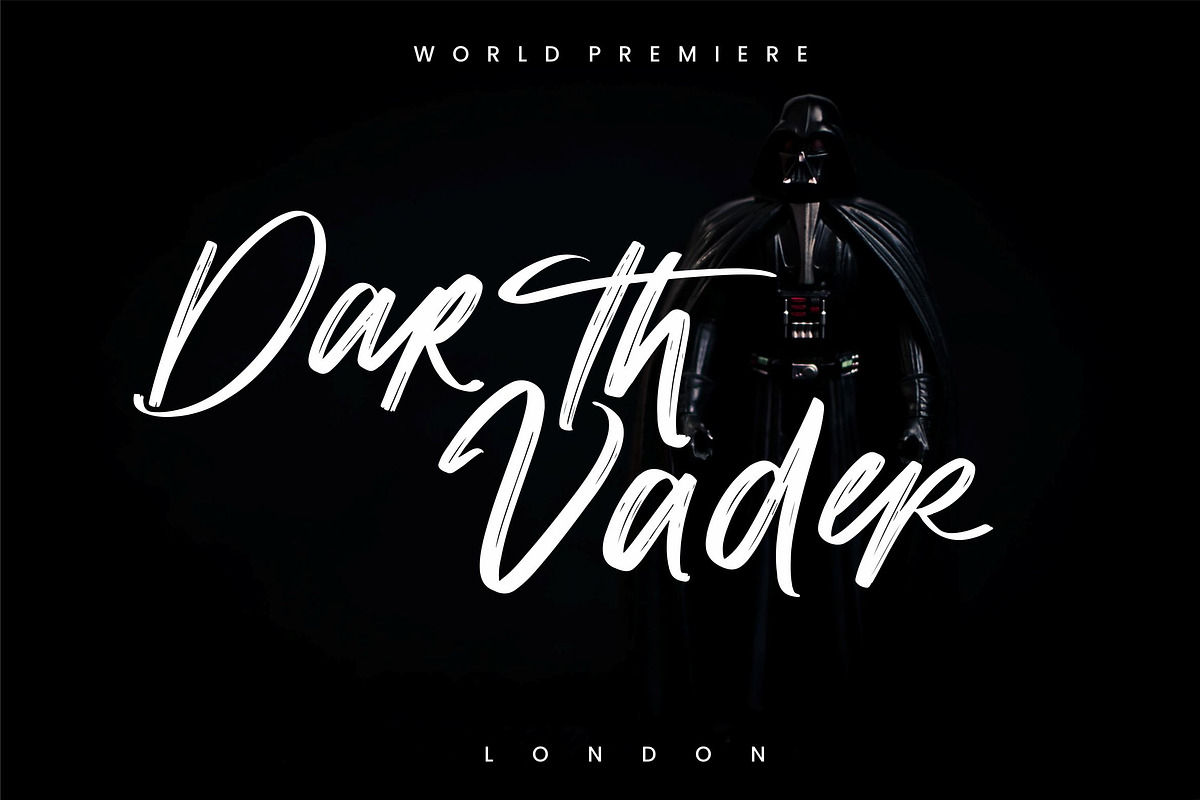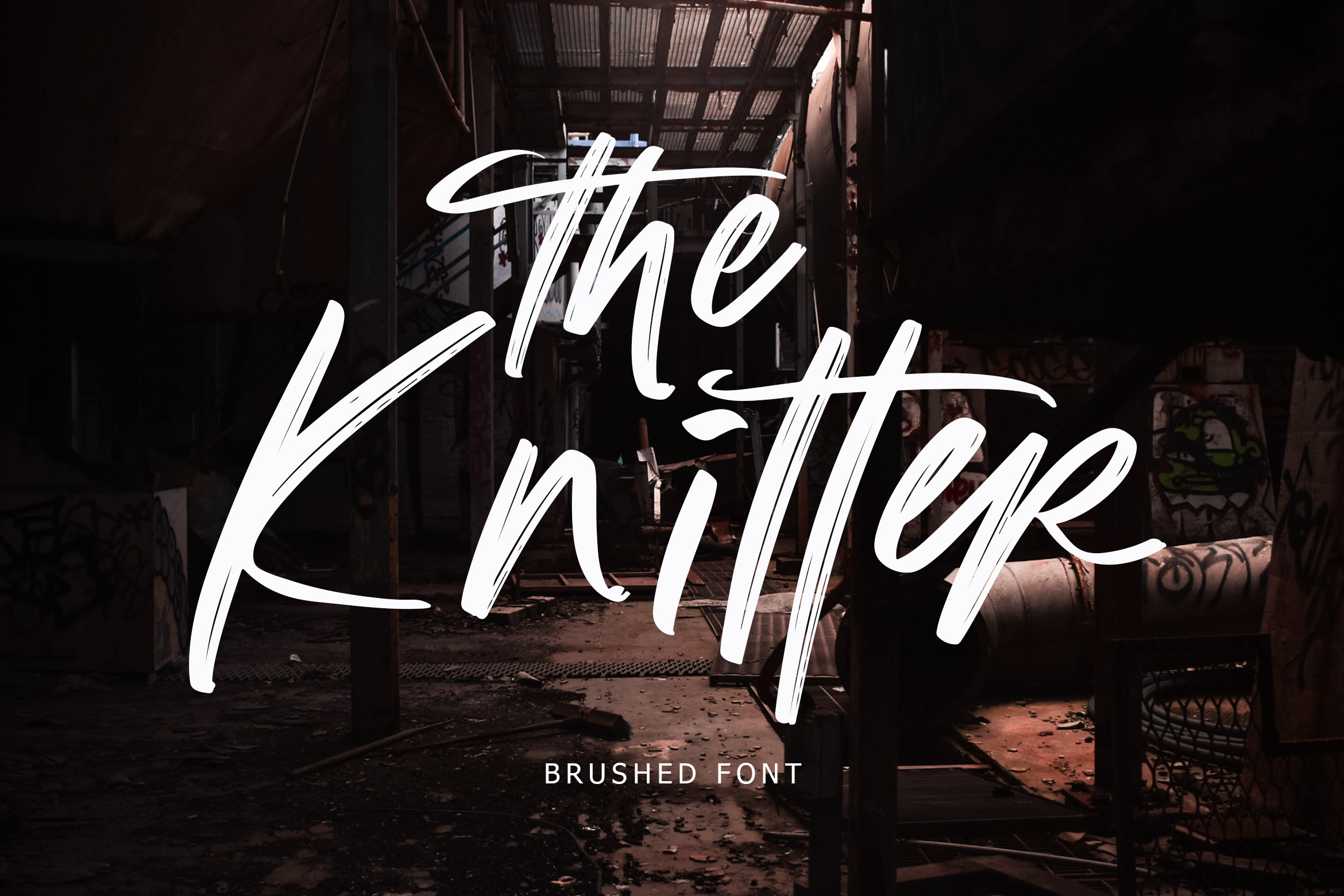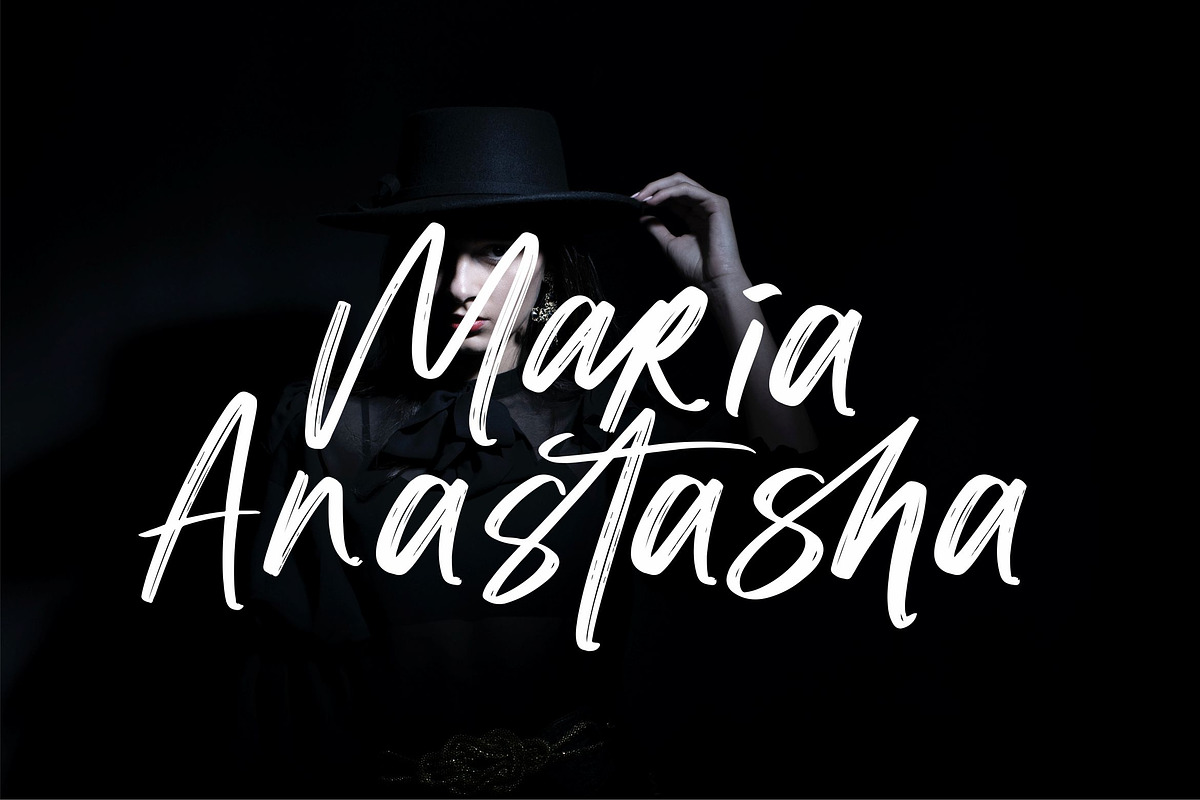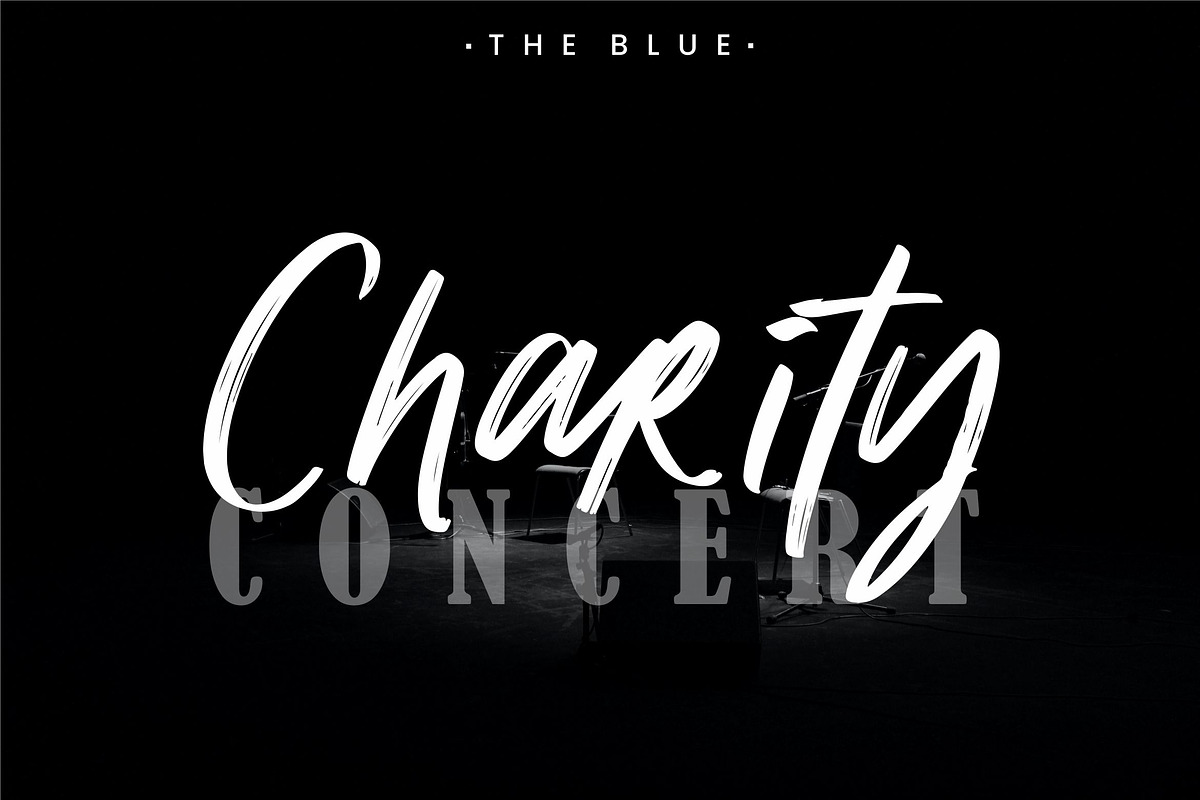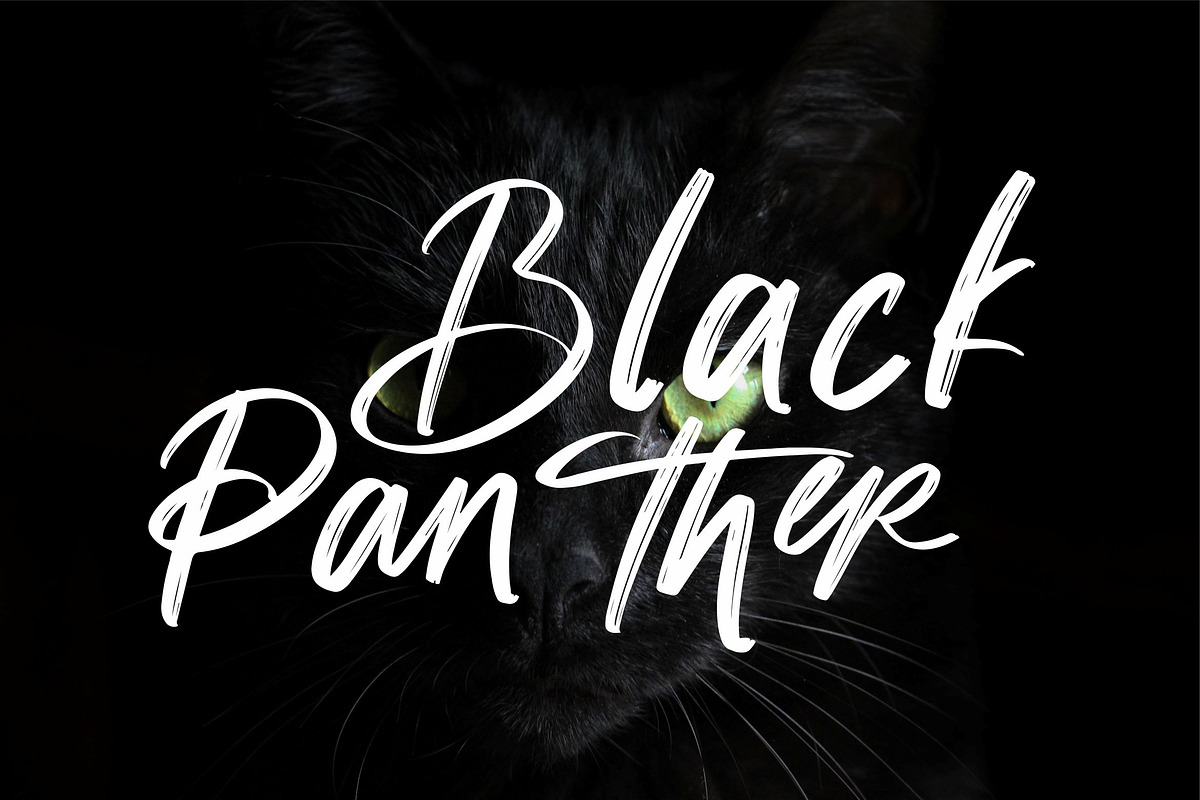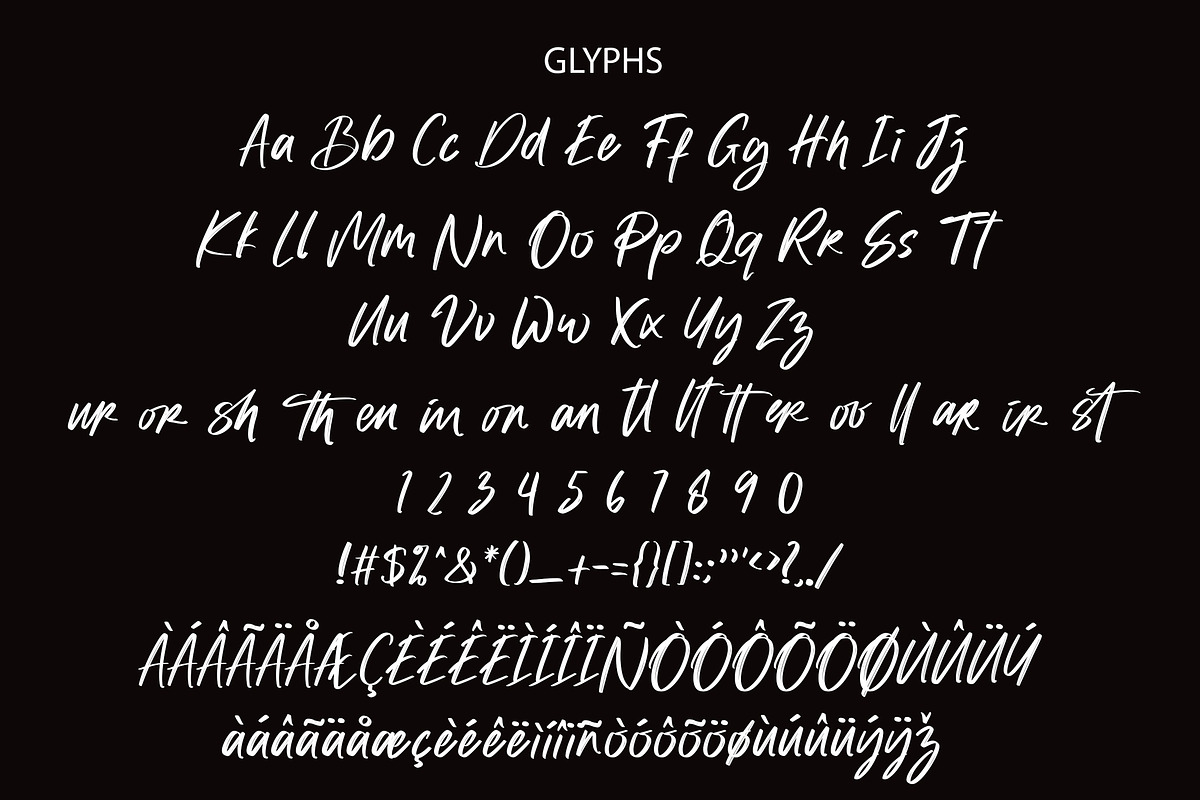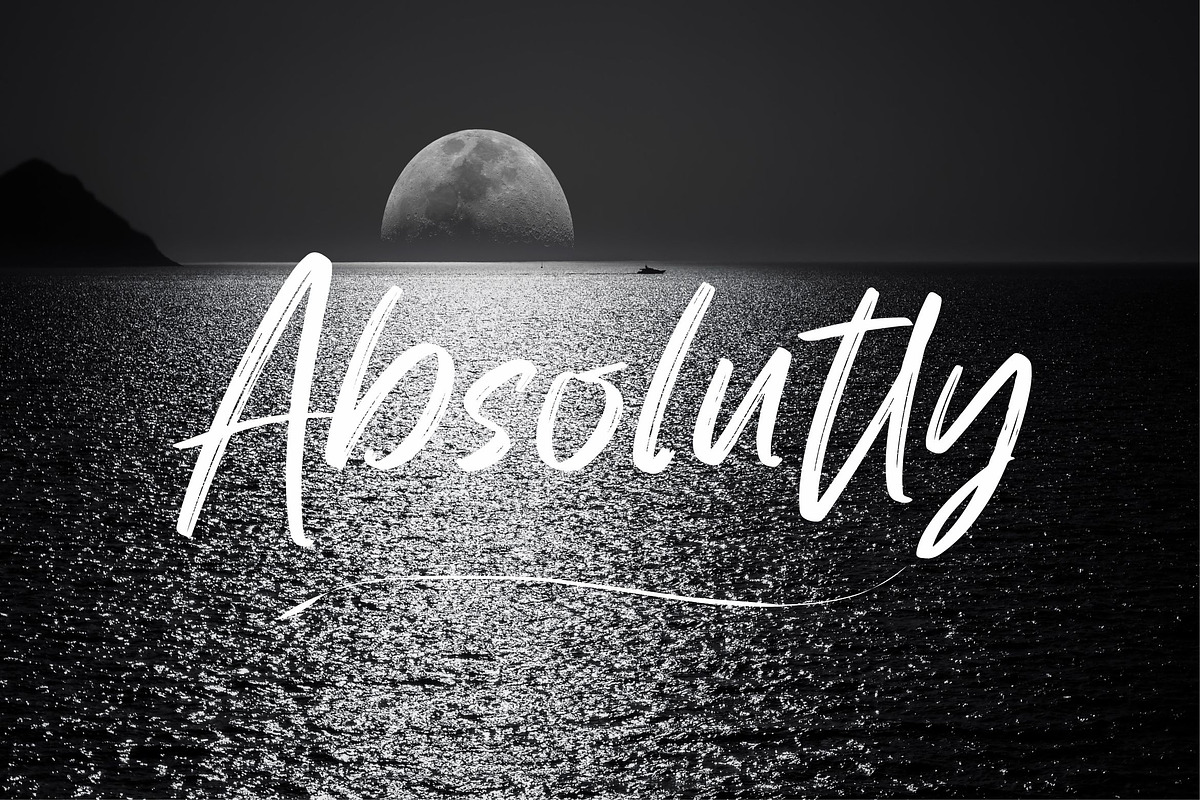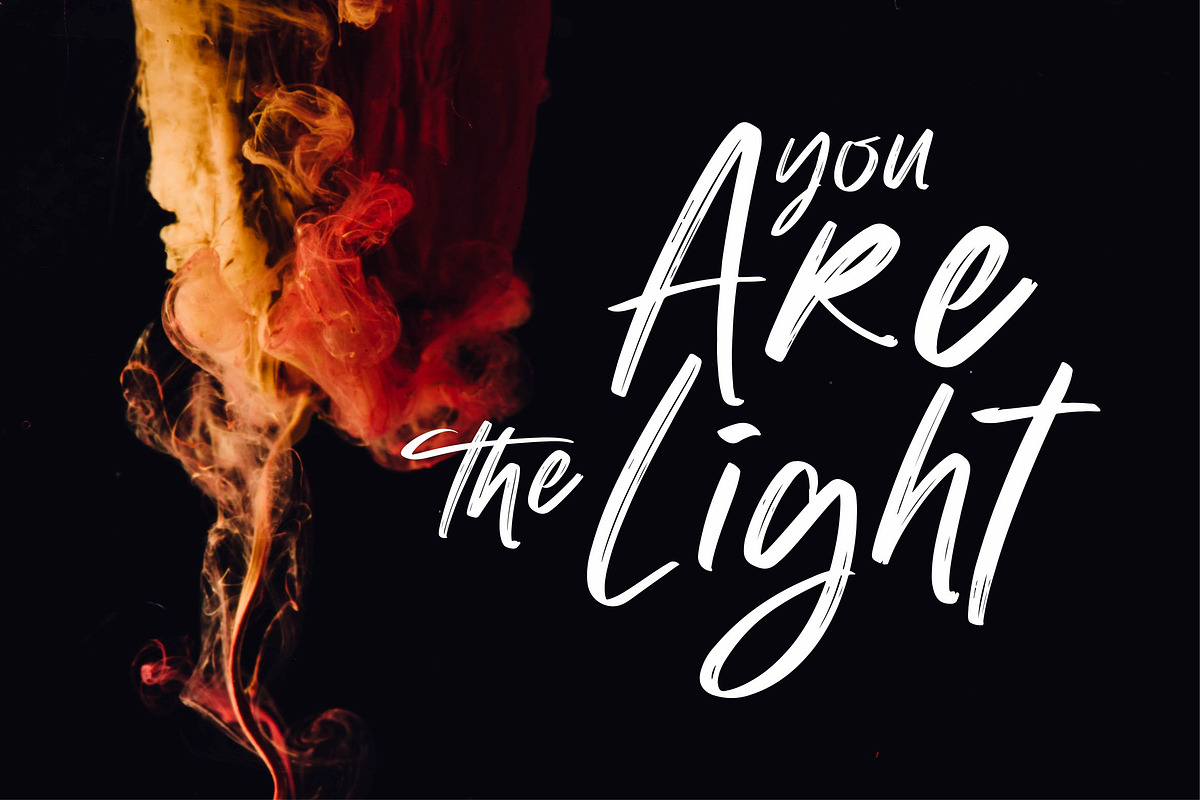
The Knitter Brushed Font
The Knitter is a brushed handwritten font. It can be used for various purposes such as logos, wedding invitations, headings, t-shirts, letterhead, signage, labels, news, posters, badges and so much more.